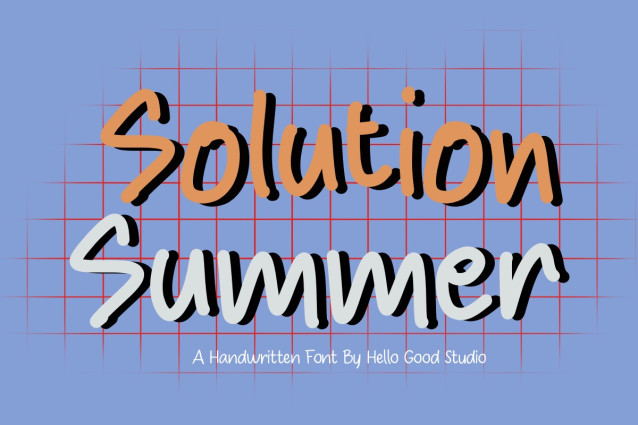
Solution summer Font
Solution summer Font is a simple and modern display font suitable for quotes, logos, headings, titles, and many more. Use it on any of your creative projects, and your designs will become outstanding!